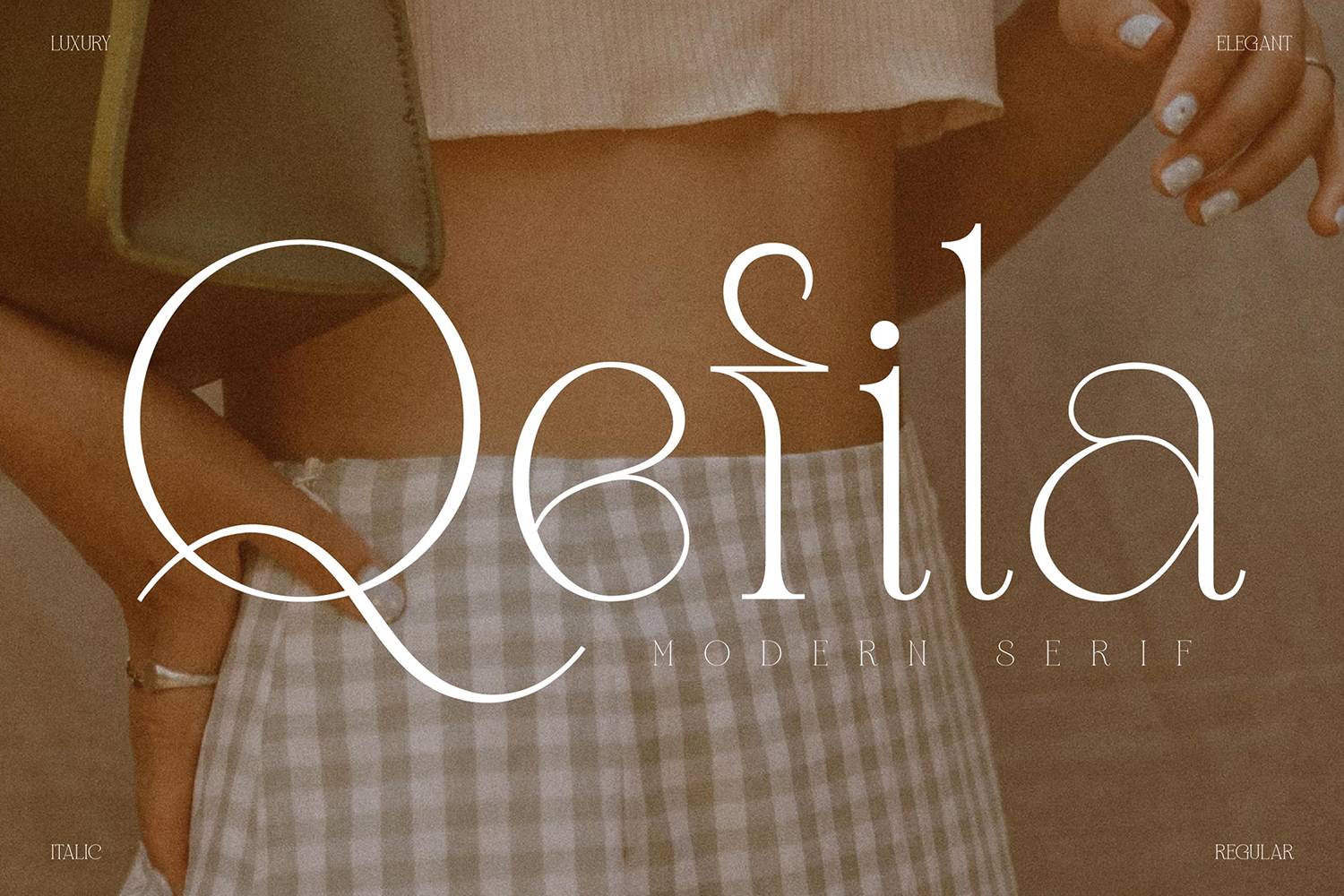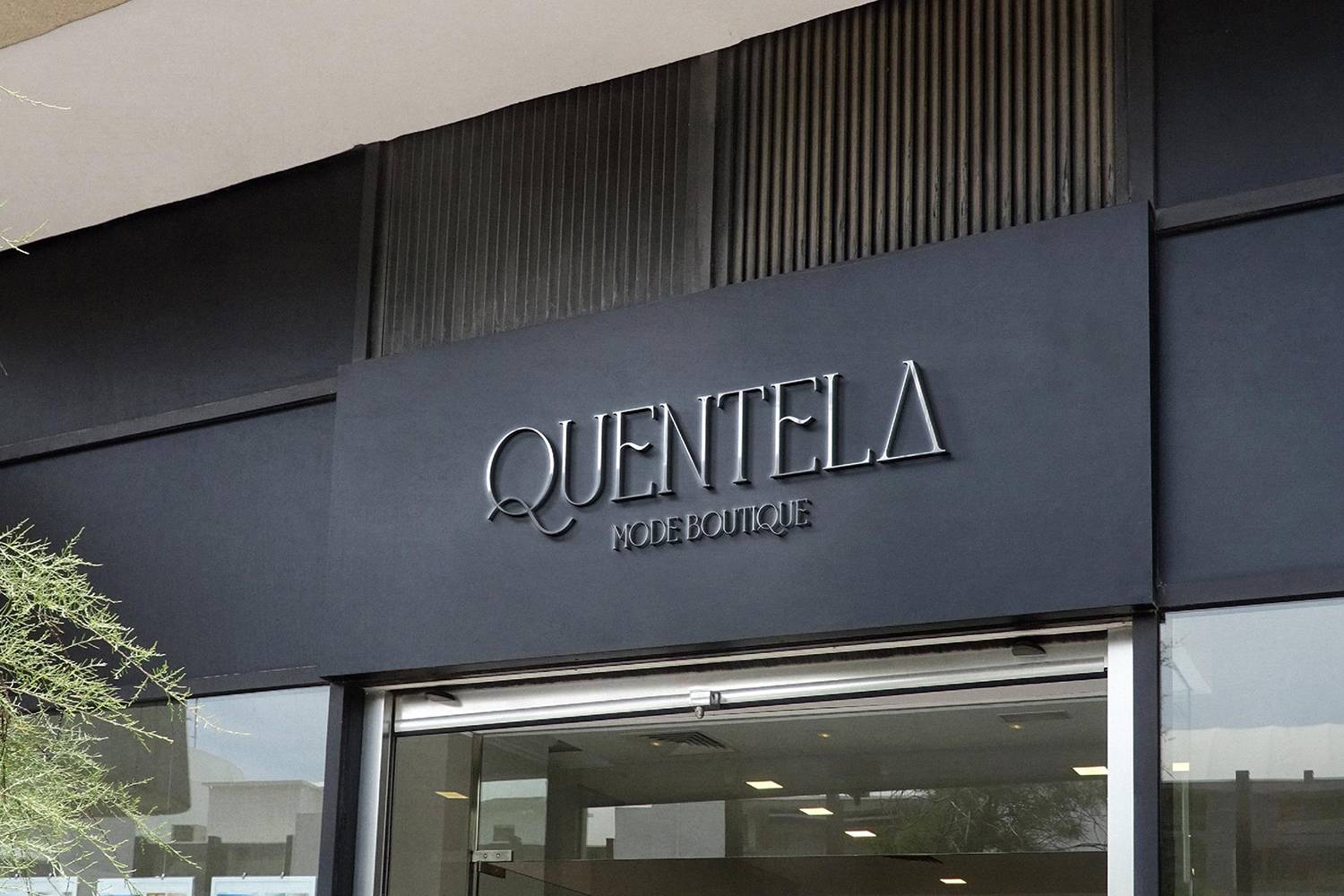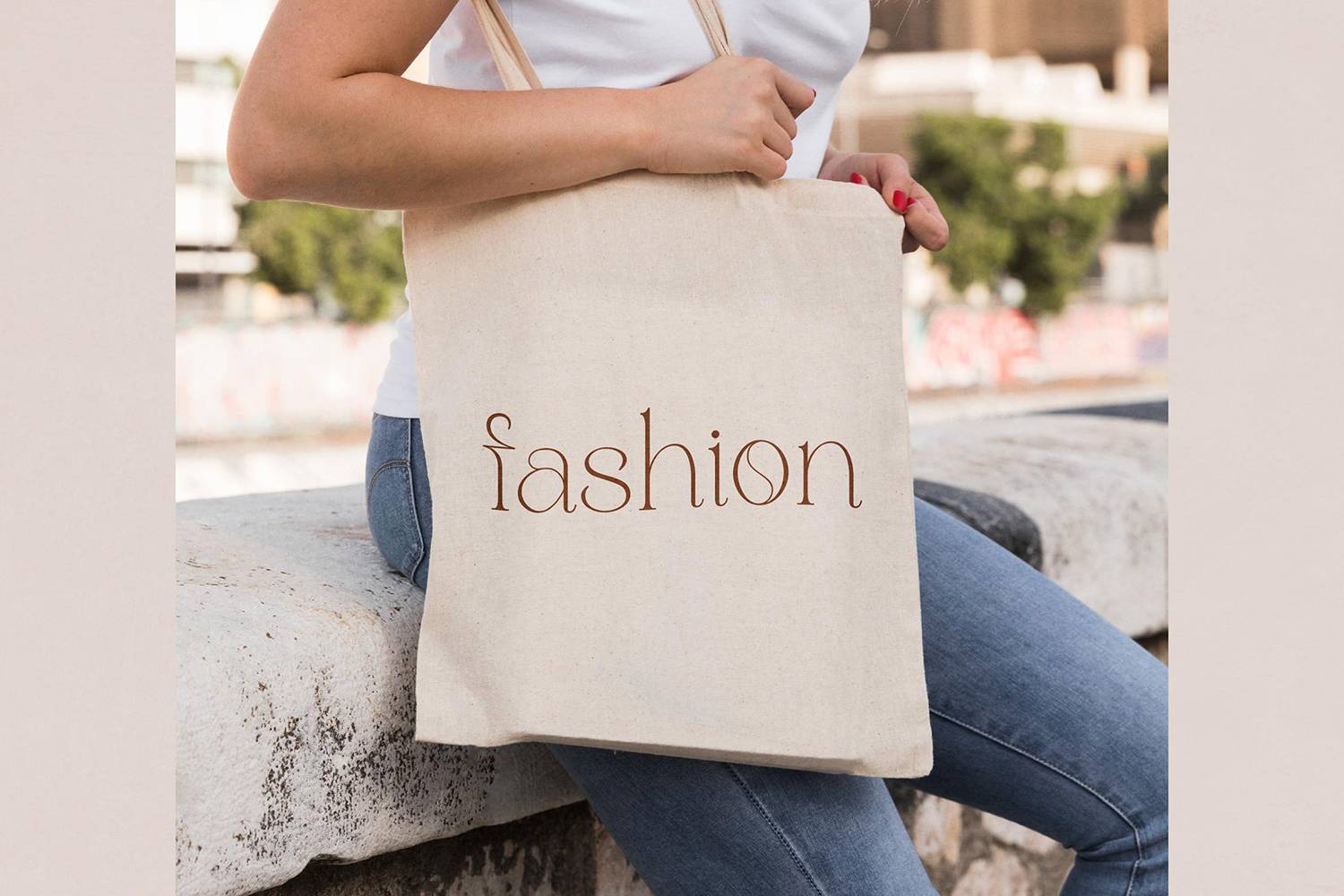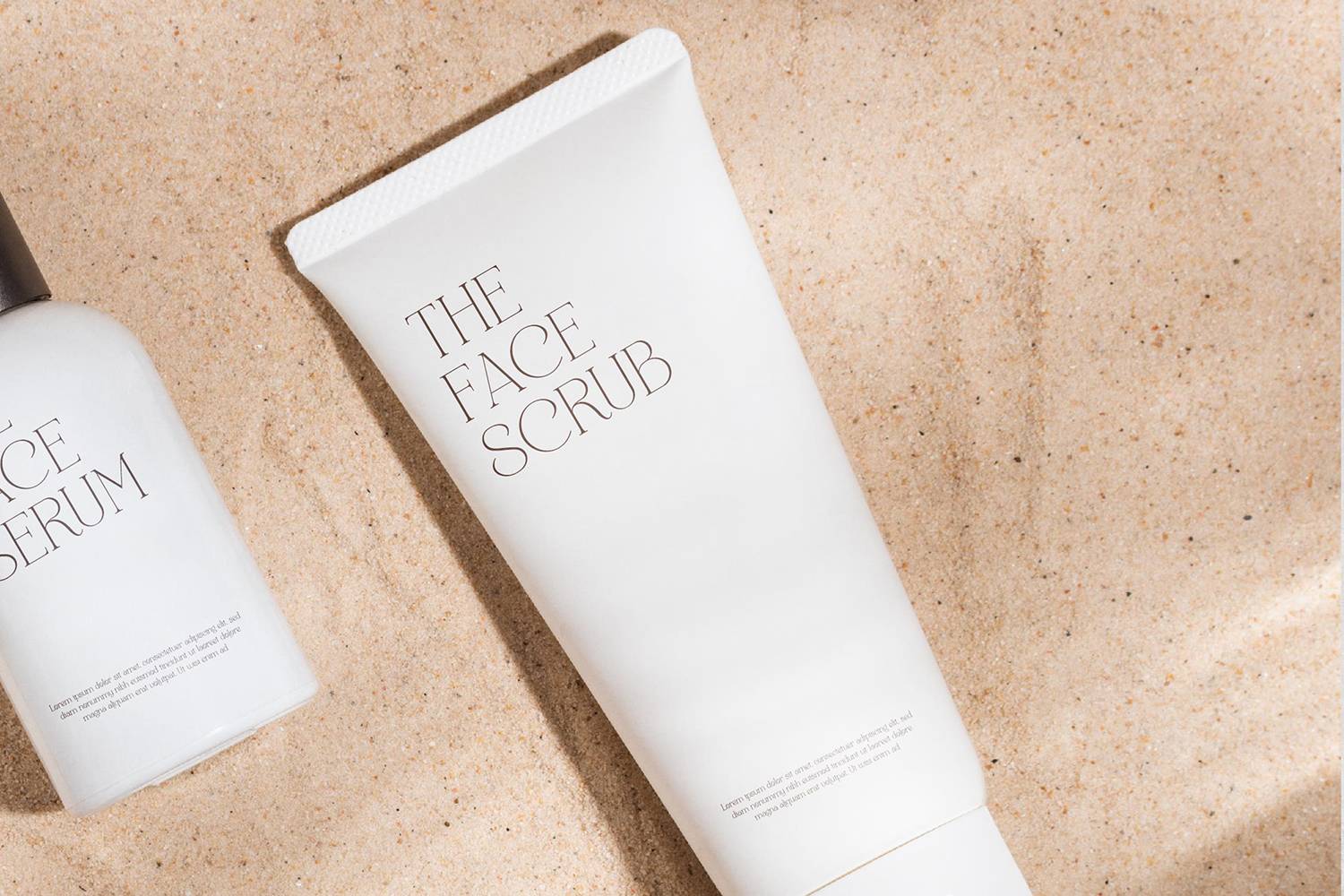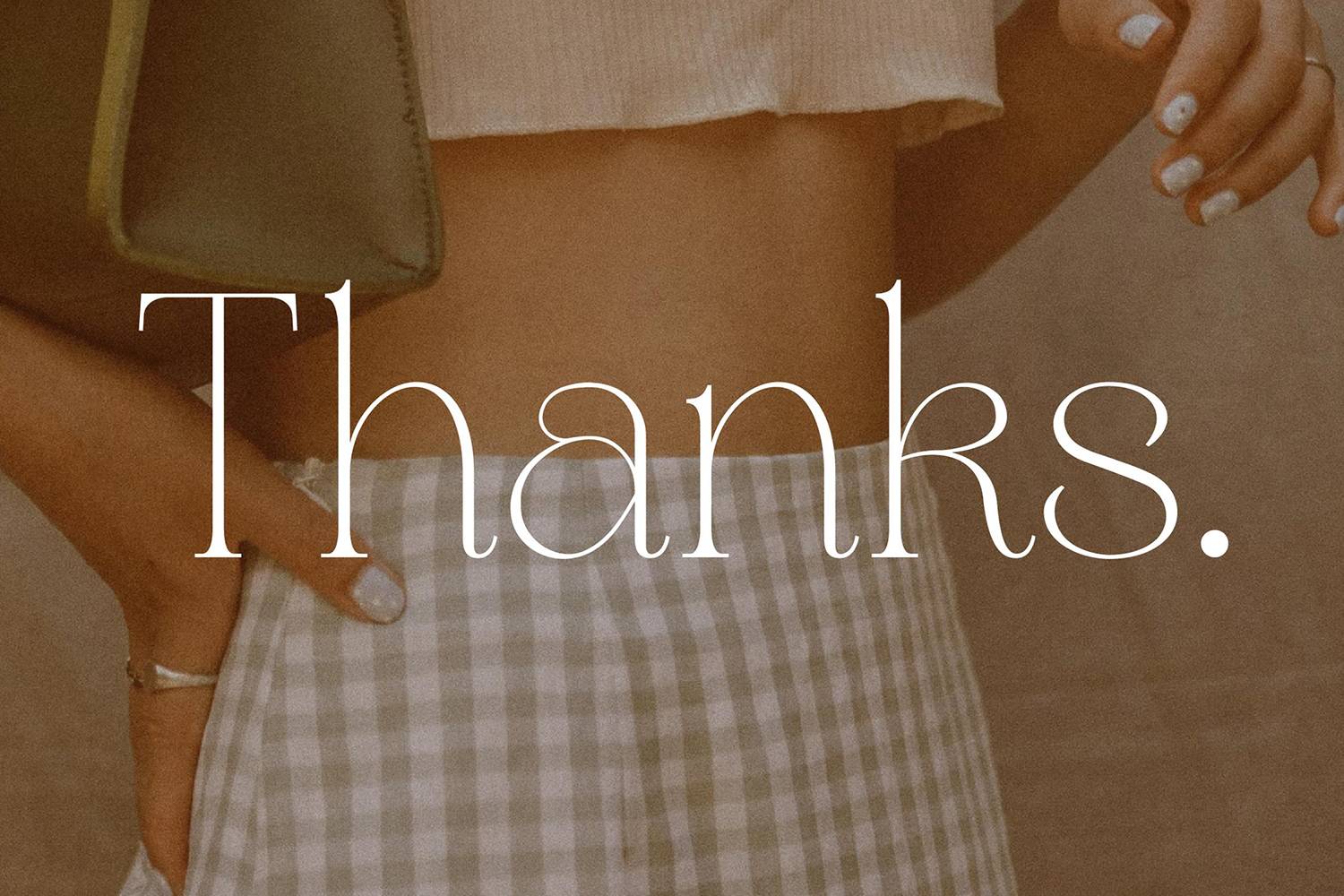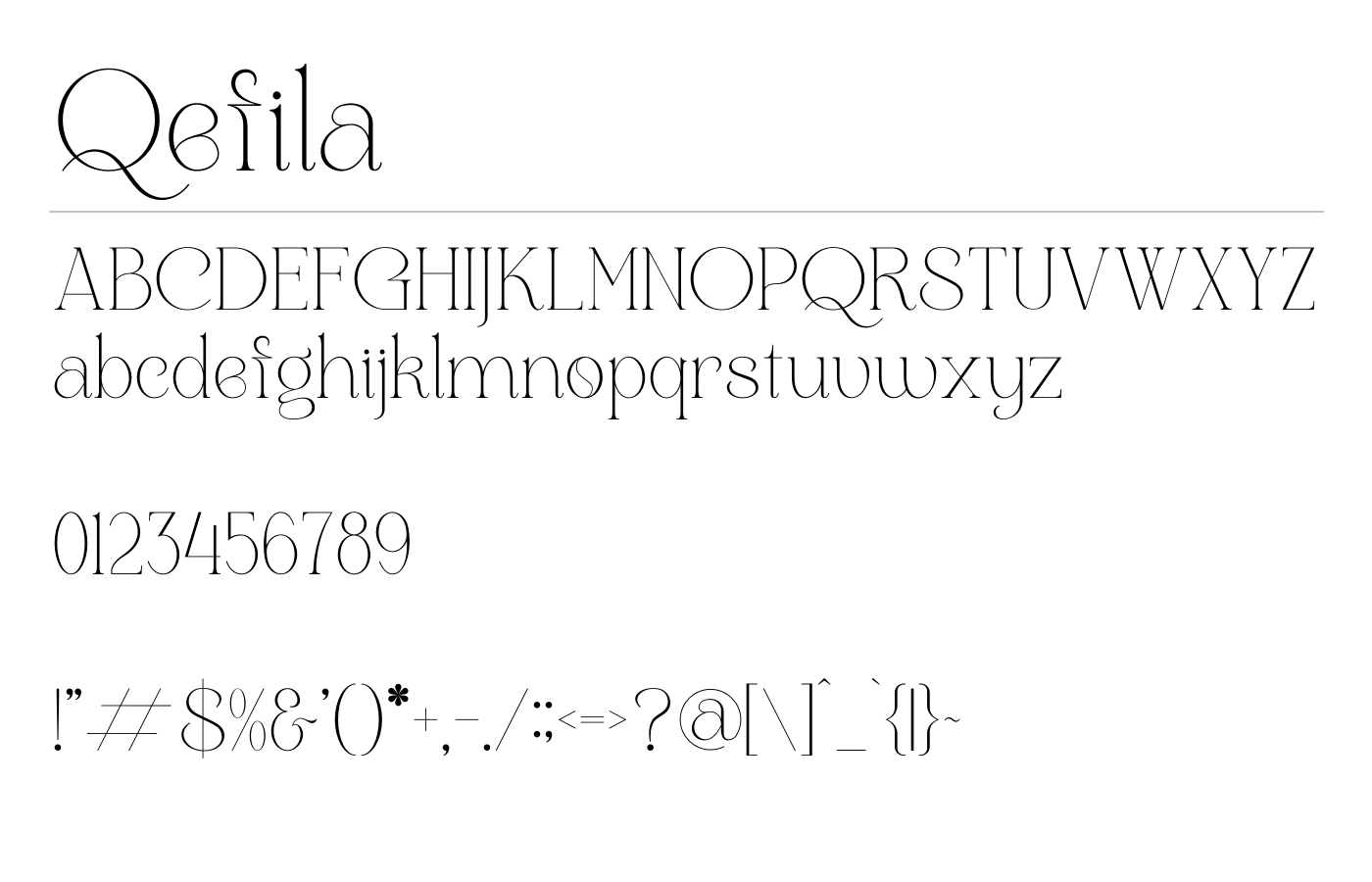
Qefila is an elegant serif typeface characterized by ultra-thin strokes and high contrast between thick and thin lines, creating a refined and delicate appearance. Its ornamental details and slender letterforms exude sophistication, making it ideal for luxury branding, editorial headlines, and fashion-related designs that require a graceful, stylish touch.
Qefila Font
About Qefila Font